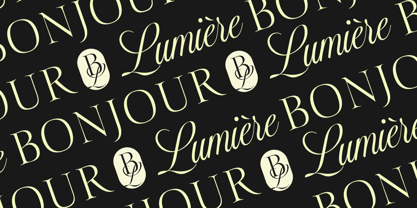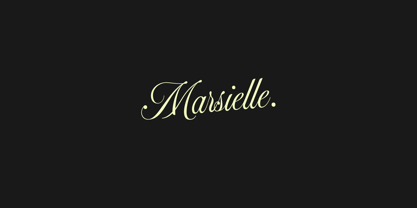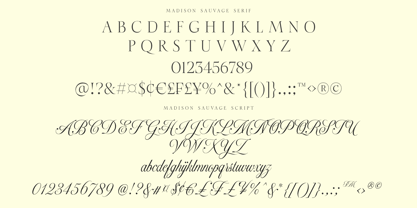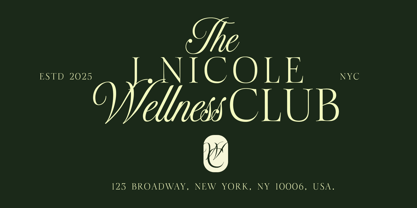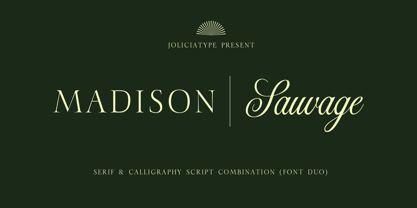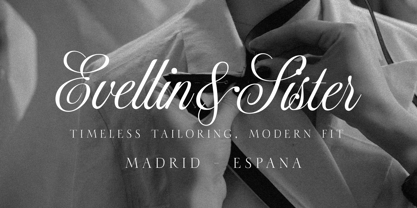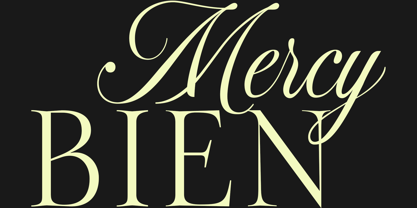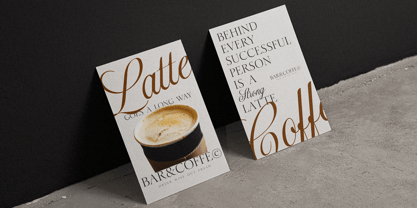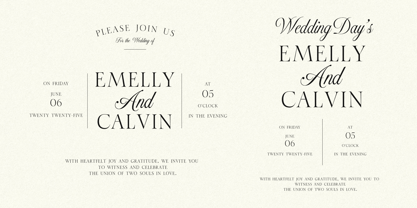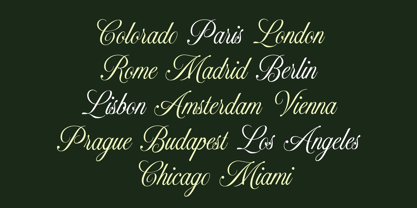
Madison Sauvage
by Jolicia Type
The Madison Sauvage Font Family was designed by Laire Banyu and published by Jolicia Type. Madison Sauvage contains 2 styles and family package options. More about this family
Madison Sauvage is an elegant fusion of classic serif structure and graceful calligraphic script, carefully crafted to evoke a sense of refined heritage and timeless luxury. This typeface blends the sharp sophistication of a traditional serif with the flowing charm of hand-lettered calligraphy, creating a distinctive look that feels both regal and romantic. Perfect for high-end branding, wedding designs, packaging, and editorial layouts, Madison Sauvage brings character and prestige to every letterform. Its dual-style harmony offers flexibility from bold headlines to delicate signature touches making it a versatile choice for designers who seek elegance with a story.